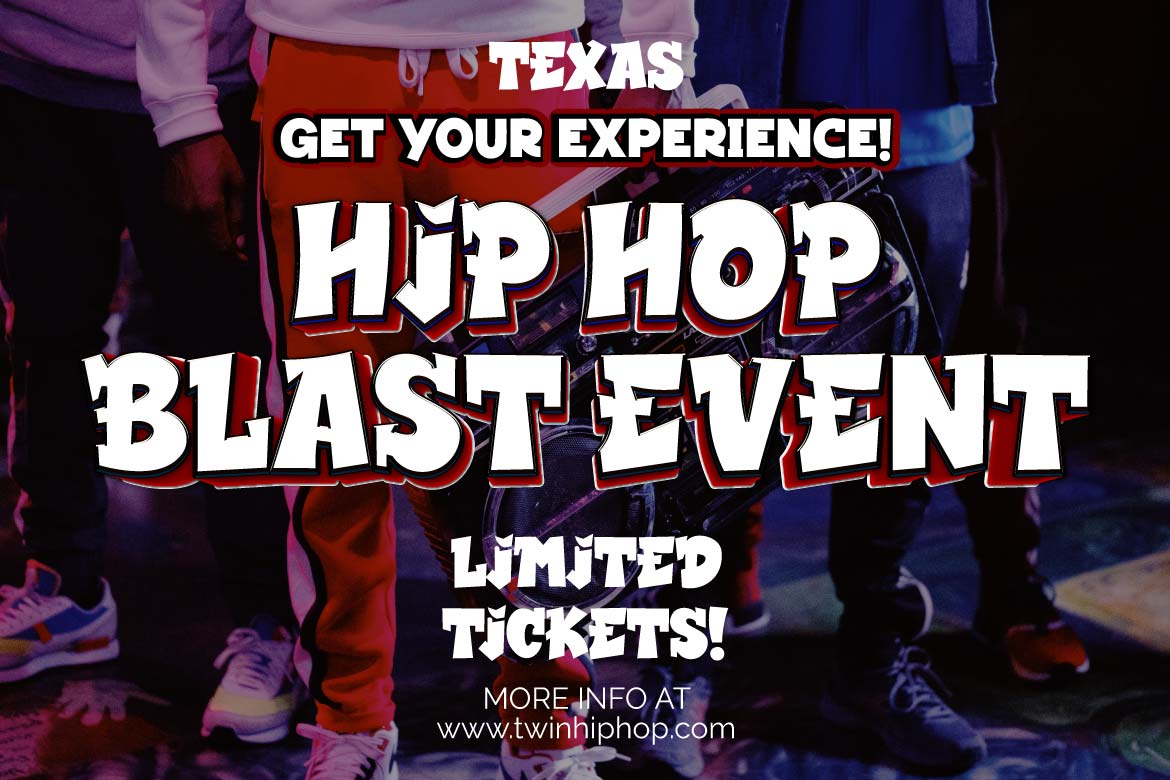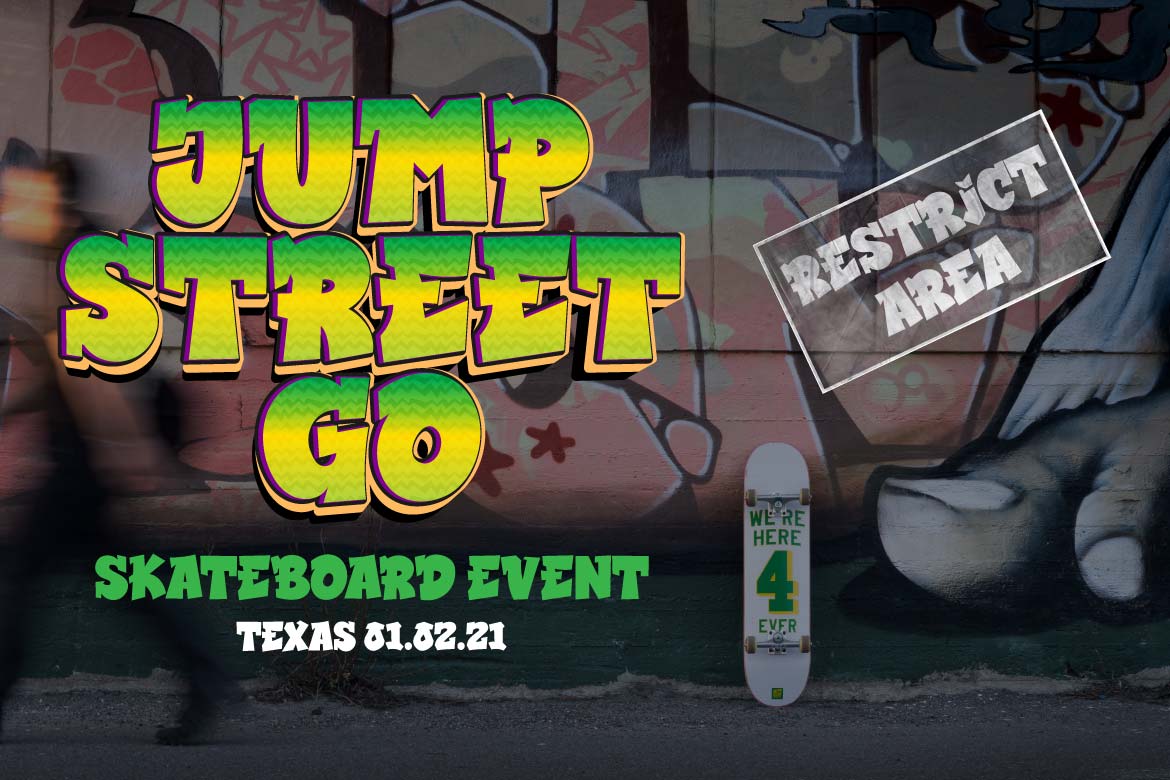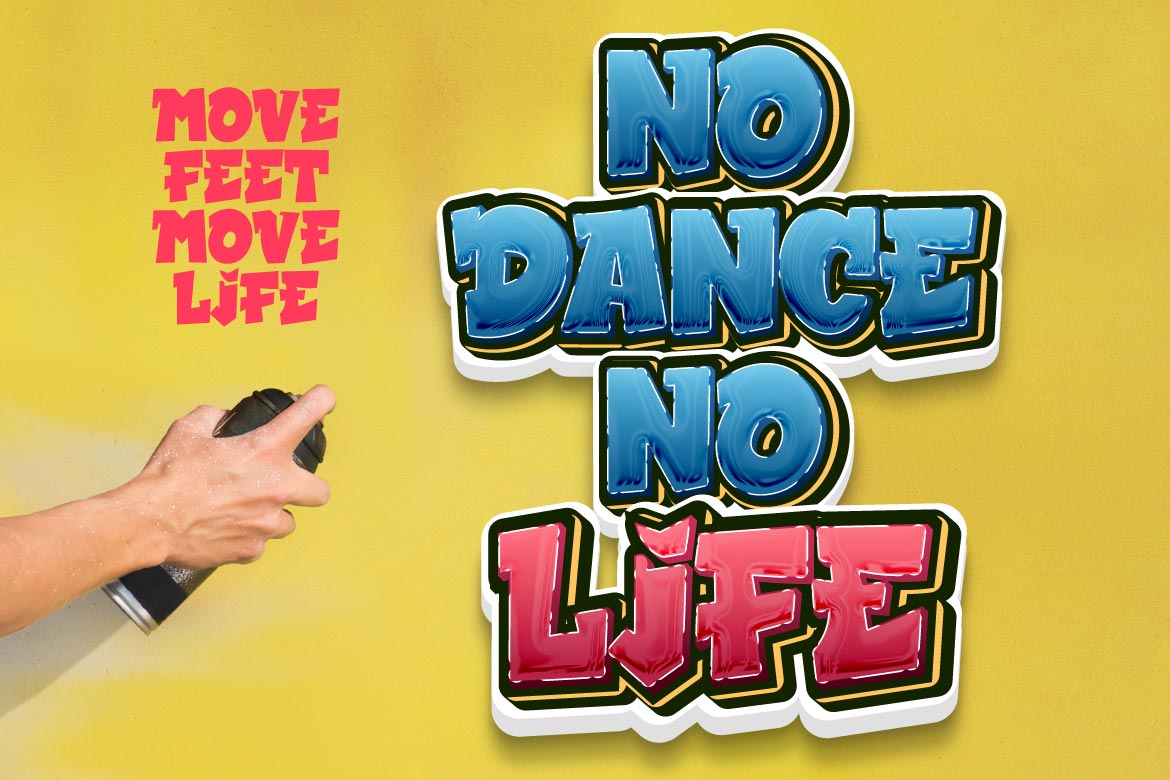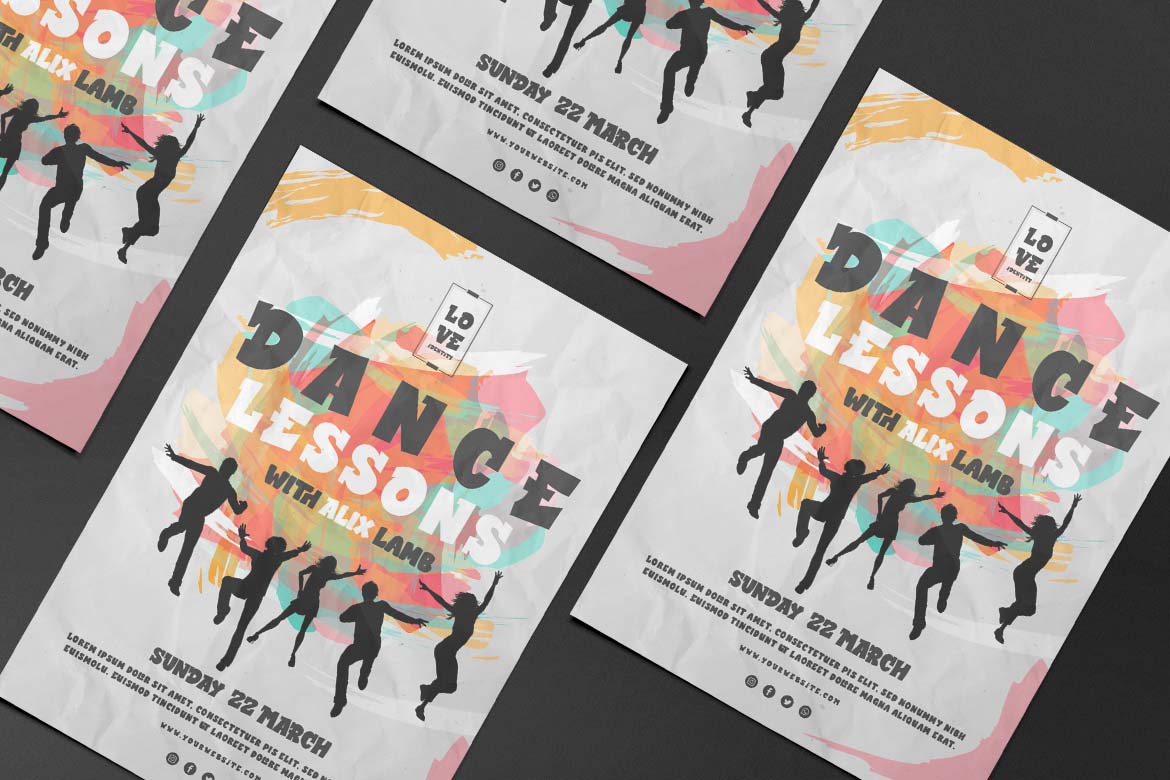
Delliger Font
Delliger Display Font
It’s a stunning and energetic display typeface with eye-catching forms, is now available. This font is ideal for graffiti-themed projects, outdoor projects, special events, penning lovely quotes, and much more. With this font, you can make your project gorgeous and memorable for everyone.
This graffiti font is great for product logos, poster titles, headlines, packaging, film titles, logotypes, gorgeous writing, and trendy graffiti designs, among other things.